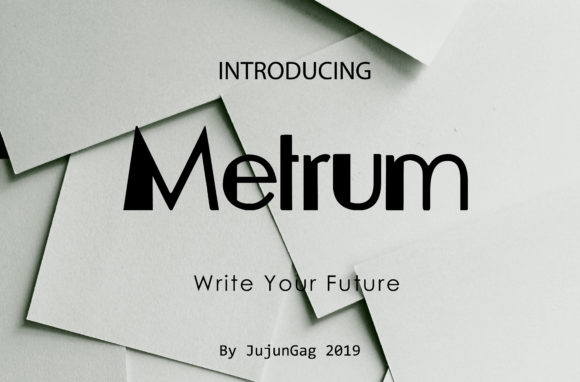
**Introducing Metrum: The Font of Expression**
Unleash your creativity with Metrum, a captivating font that fuses modern aesthetics with effortless readability. Inspired by the dynamic rhythm of life, Metrum empowers you to express yourself with flair.
Crafted by the esteemed Nerdstudio, Metrum is a sans-serif masterpiece that dances across your screen, enchanting the eyes with its graceful curves and clean lines. Its unique charm invites you to weave tales, craft designs, and ignite your imagination.
Whether you're a blogger longing to captivate your readers, a designer seeking to make a statement, or an artist yearning to pour your soul onto the canvas, Metrum is your muse. Its versatile nature adapts seamlessly to a myriad of purposes, transforming every creative endeavor into an unforgettable expression.
Indulge in the allure of Metrum and witness how your words and designs take on a life of their own. Let it be the conduit for your ideas, the spark that ignites your passion, and the captivating melody that resonates with your audience.
Embrace Metrum, the font that empowers you to express the rhythm of your soul. Its captivating beauty and unwavering legibility will transform your creations into captivating masterpieces that leave an everlasting impact.